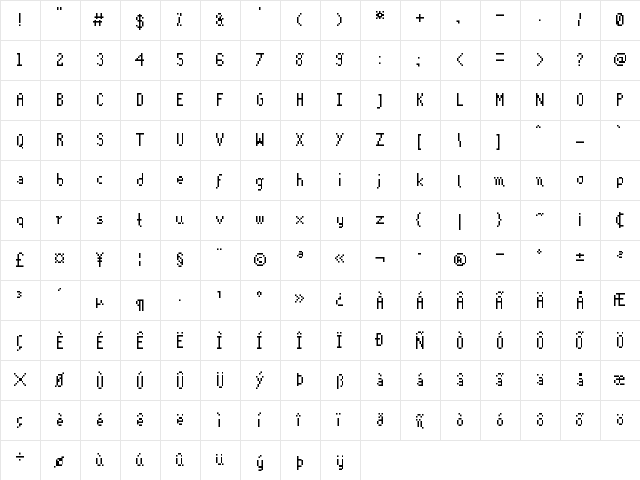
Greekpixi Regular
Design Context for Greekpixi Typeface
Greekpixi takes a measured approach to typography — its balanced proportions and neutral character make it a reliable workhorse for both digital and print work.